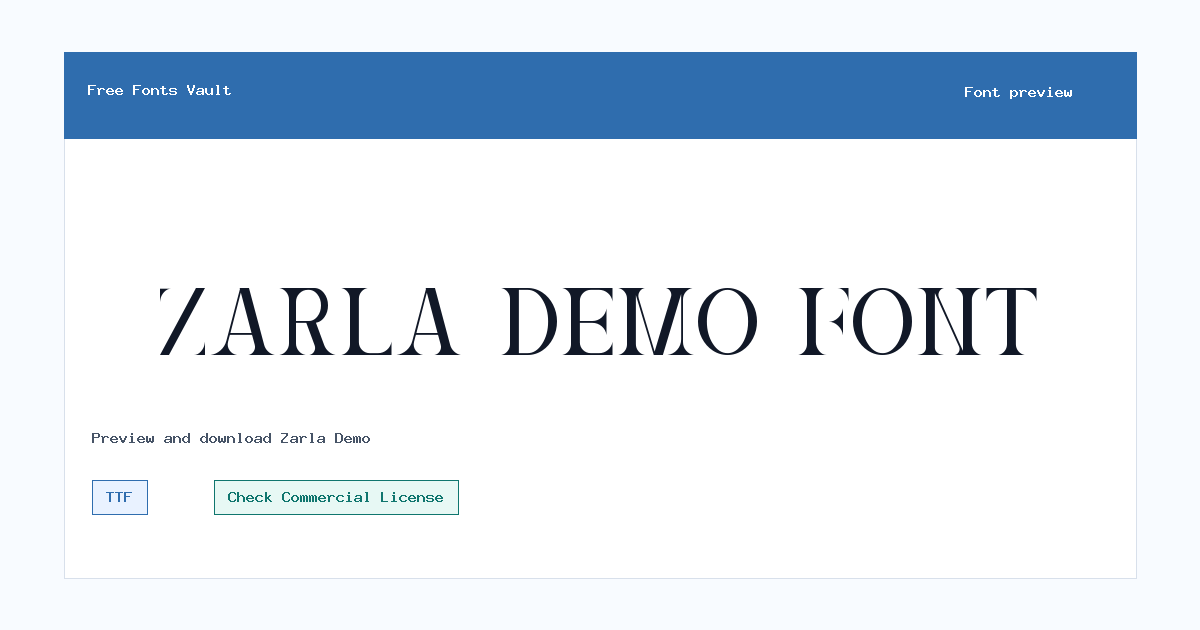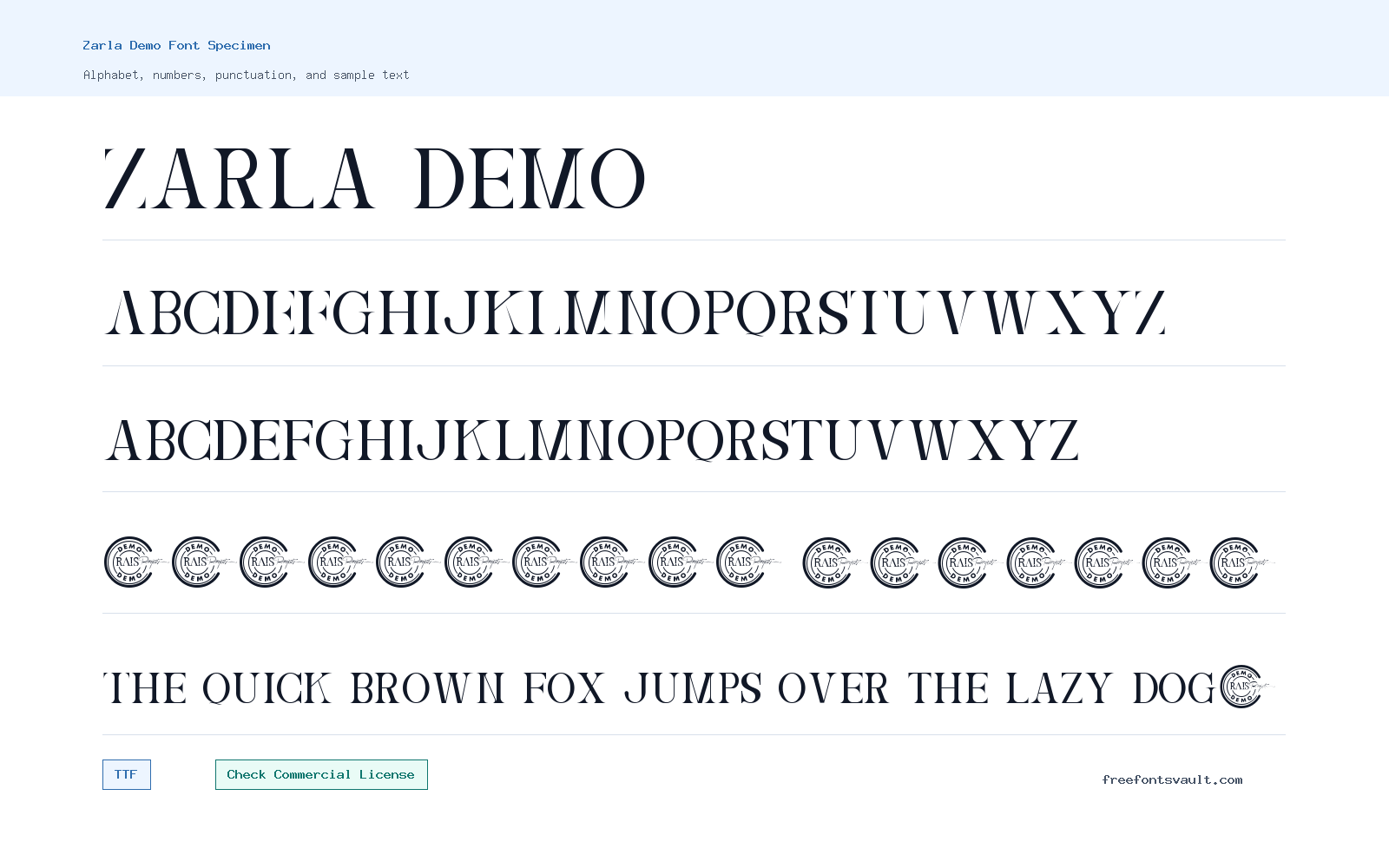
Zarla Demo
Zarla Demo font.
Zarla Demo is a serif display font from RaisProject, designed for personal projects that need a decorative, letter-focused style. Use the preview to test your own words before downloading, especially for titles, names, and short phrases.
About Zarla Demo
Zarla Demo is listed as a Regular 400 TrueType font, with the file name ZarlaDemoRegular.ttf. External font listings describe it as a serif typeface, so it is best approached as a display choice rather than a plain text font. It should work well when the type is large enough for the letter details to show clearly.
Try Zarla Demo in the live preview with the exact text you plan to use. Check uppercase words, lowercase words, numbers, punctuation, and any accented characters you need. Since the page lists a single regular style, plan your design around one weight instead of relying on bold, italic, or multiple family members.
Zarla Demo is a single regular TTF style, so the safest way to judge it is with the real text from your project. Single-style demo fonts are usually best for testing one headline, logo draft, invitation line, or short display phrase rather than a full article layout.
- Serif display style suited to short, prominent text
- Personal-use headings, invitations, quote graphics, and display text
- Testing logo-style words, names, labels, and decorative title treatments
What kind of projects is Zarla Demo best for?
Use it for personal display text such as headings, invitations, quote images, labels, and short decorative words. It is not the best choice for long paragraphs.